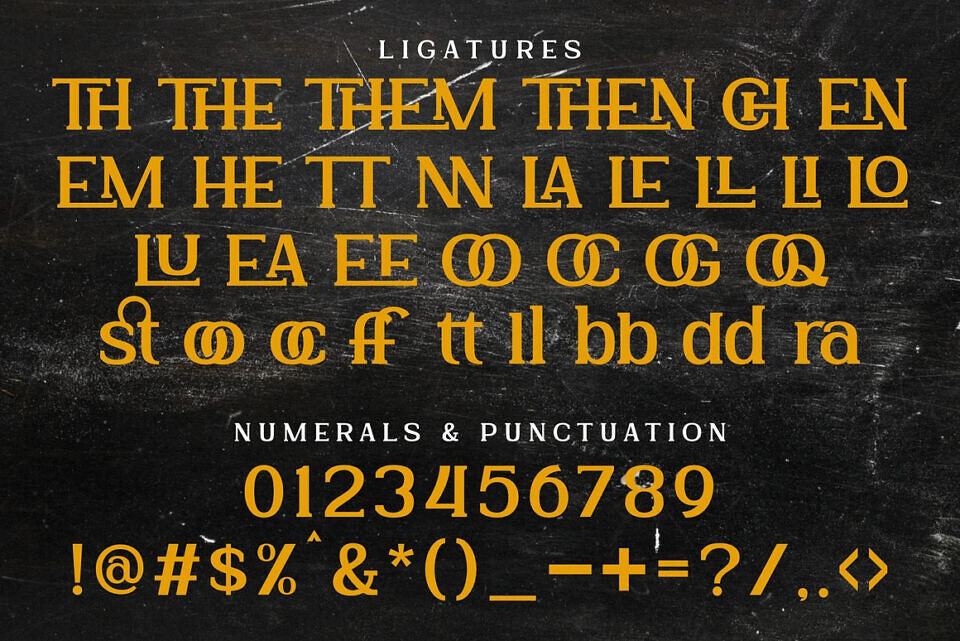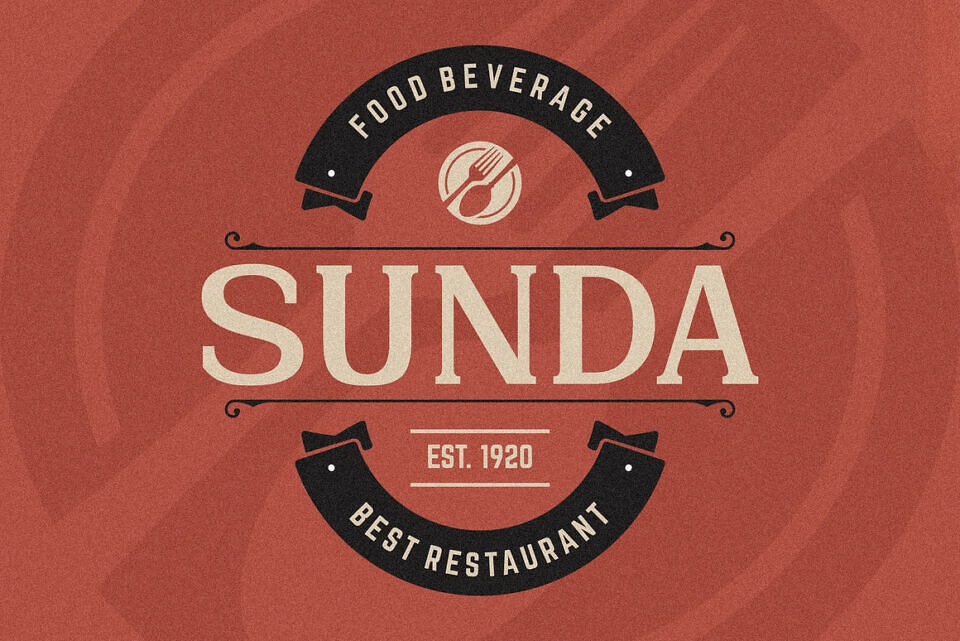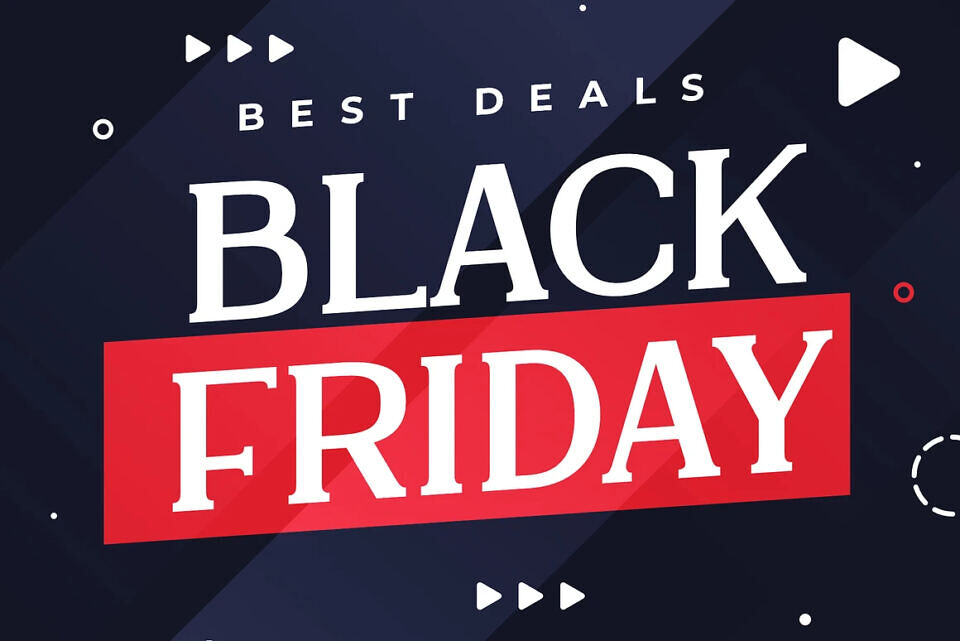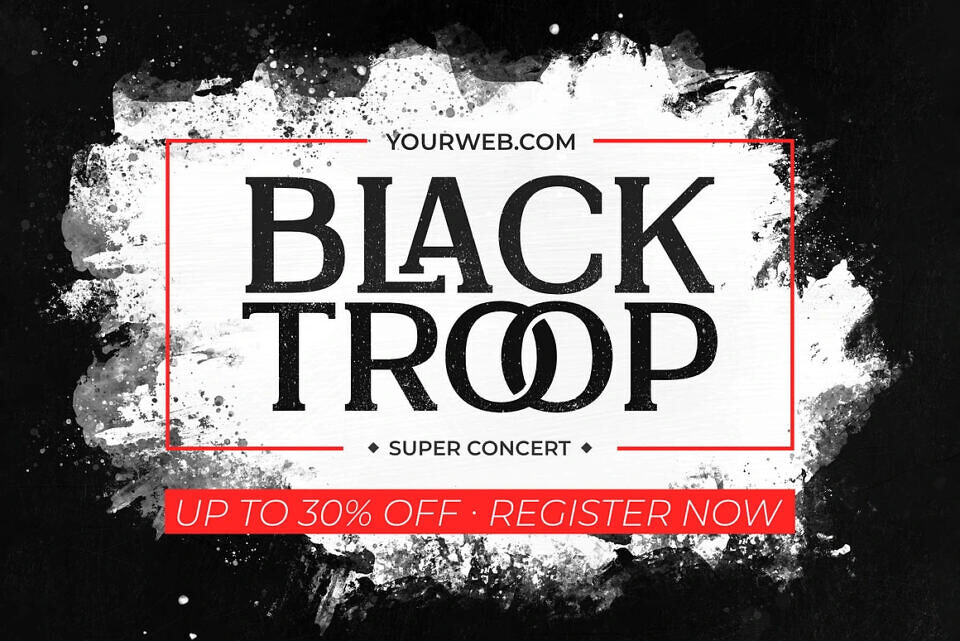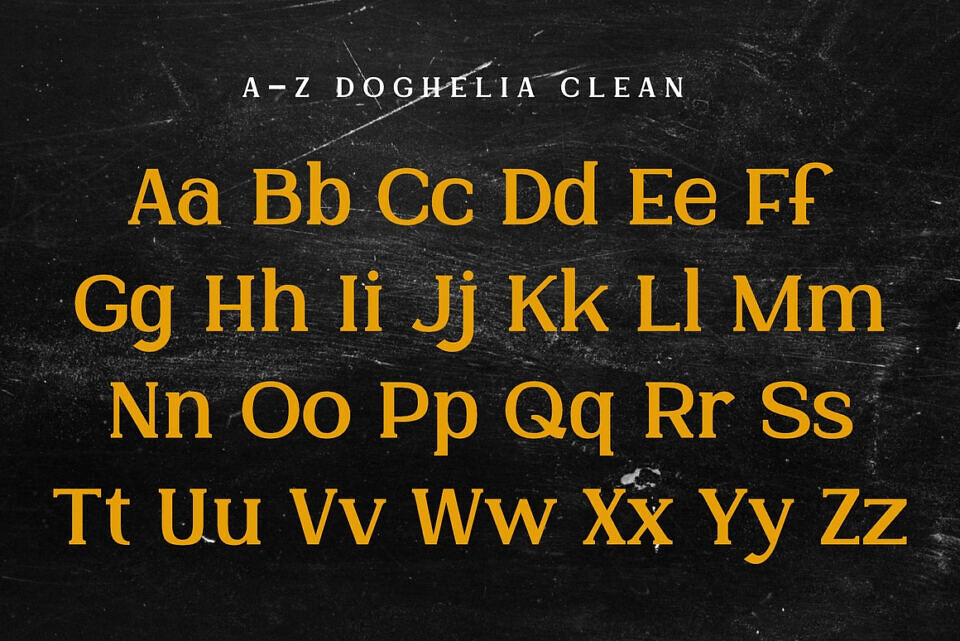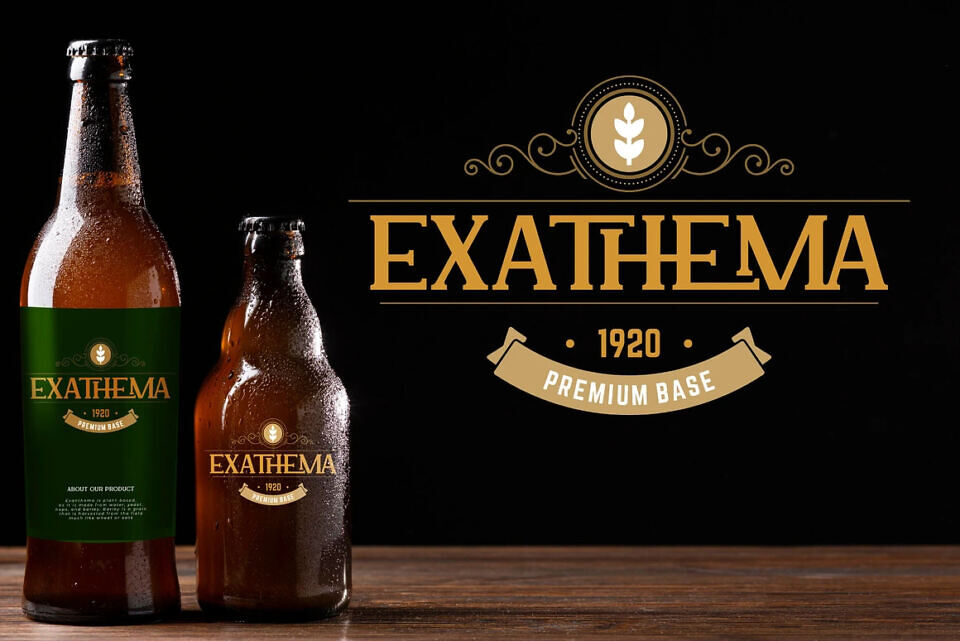
Doghelia Font
Doghelia is a modern bold serif display font that combines confidence with contemporary style. Featuring strong, chunky serifs and clean lines, it delivers a striking, sophisticated appearance ideal for logotypes, branding, headlines, and creative projects.
Doghelia includes an extensive set of ligatures, enabling seamless, elegant letter connections and unique typographic expression. Versatile and impactful, this font elevates designs with bold presence and refined detail, making it perfect for designers seeking a powerful, memorable, and stylish display typeface.